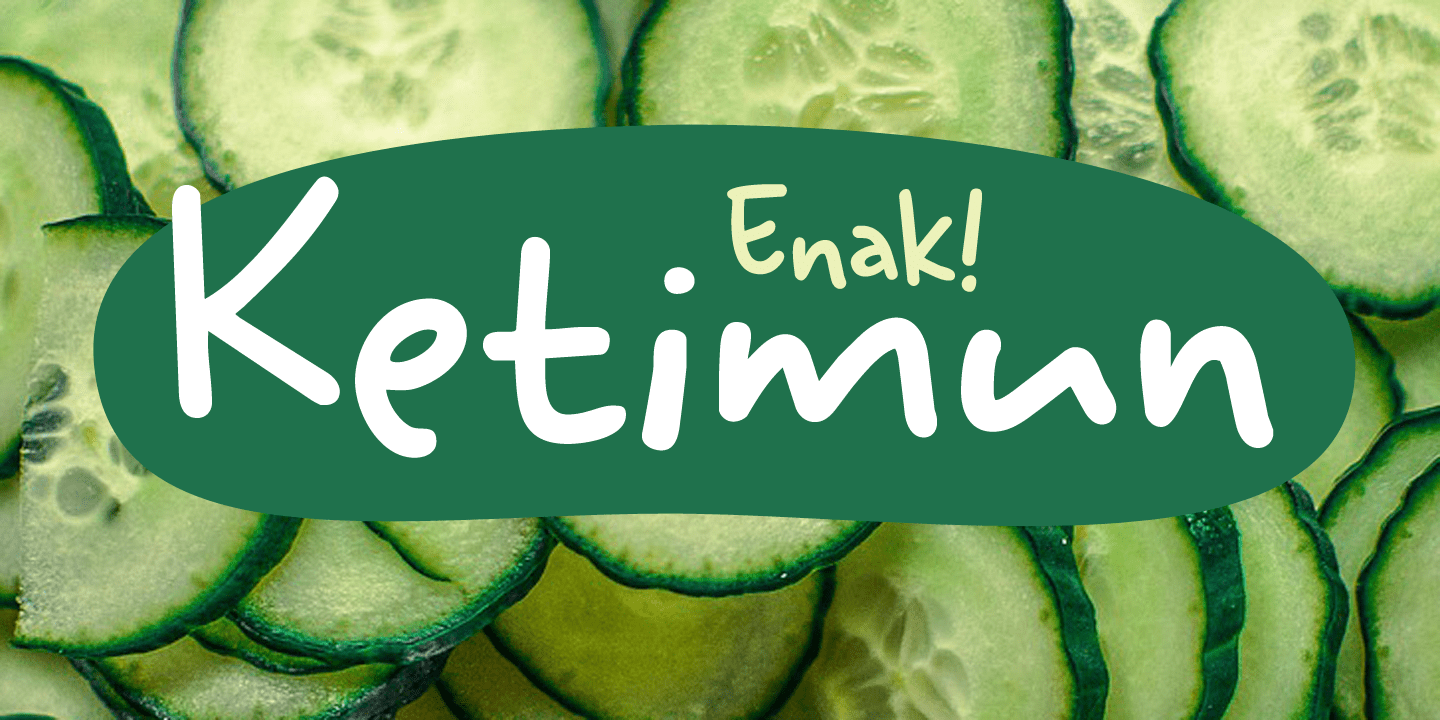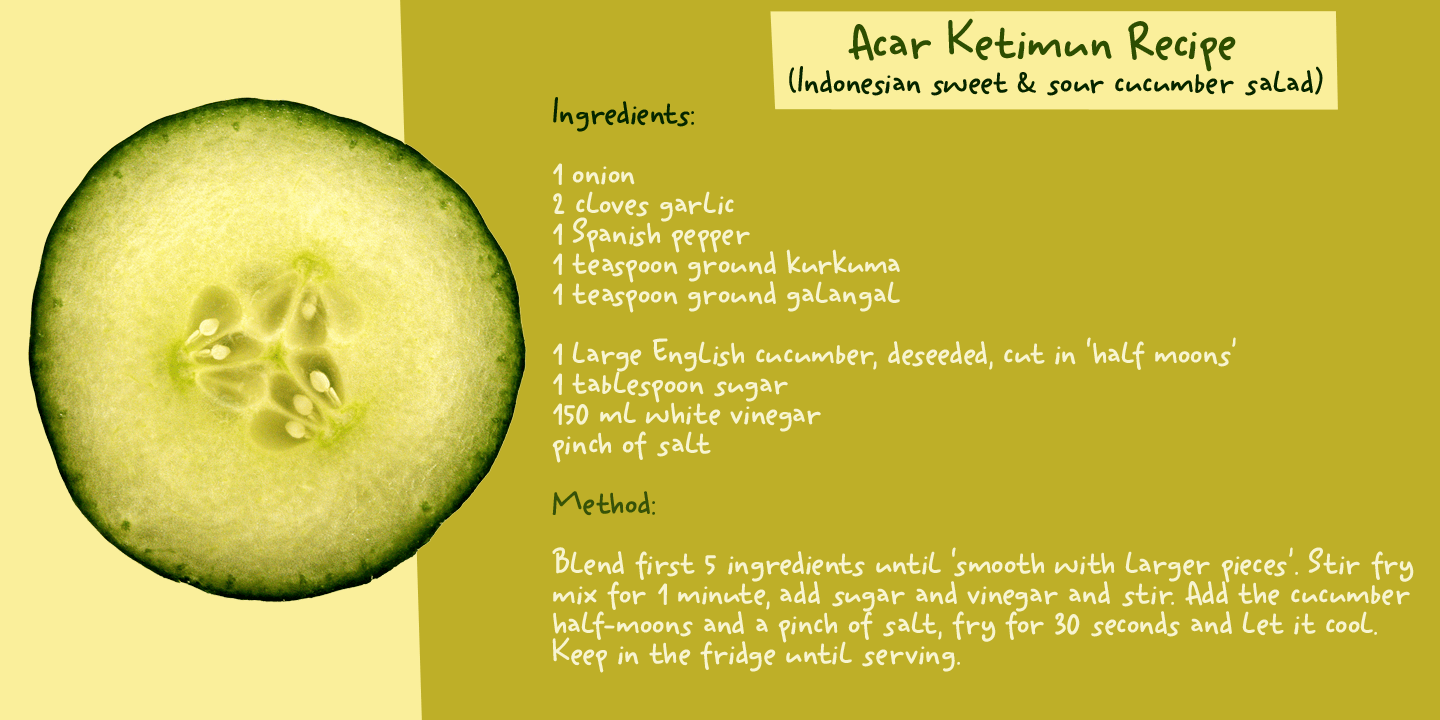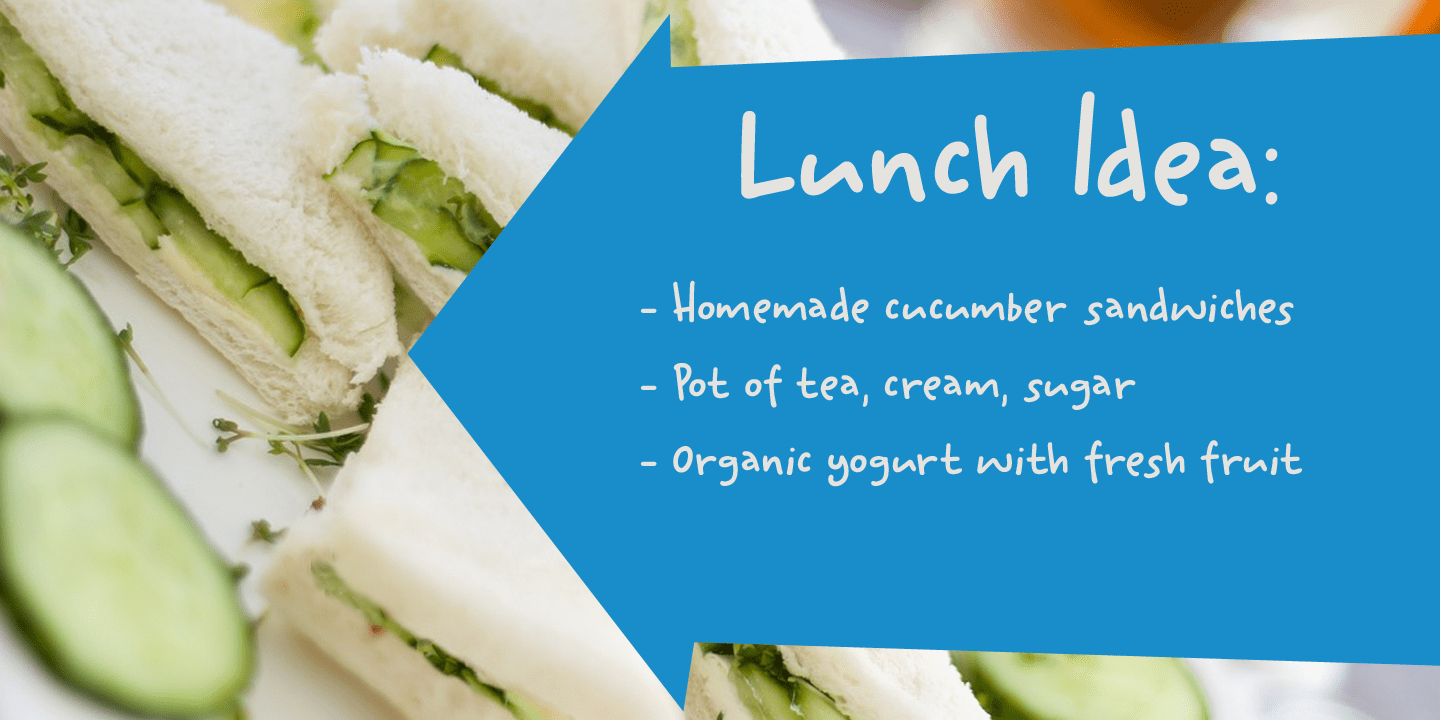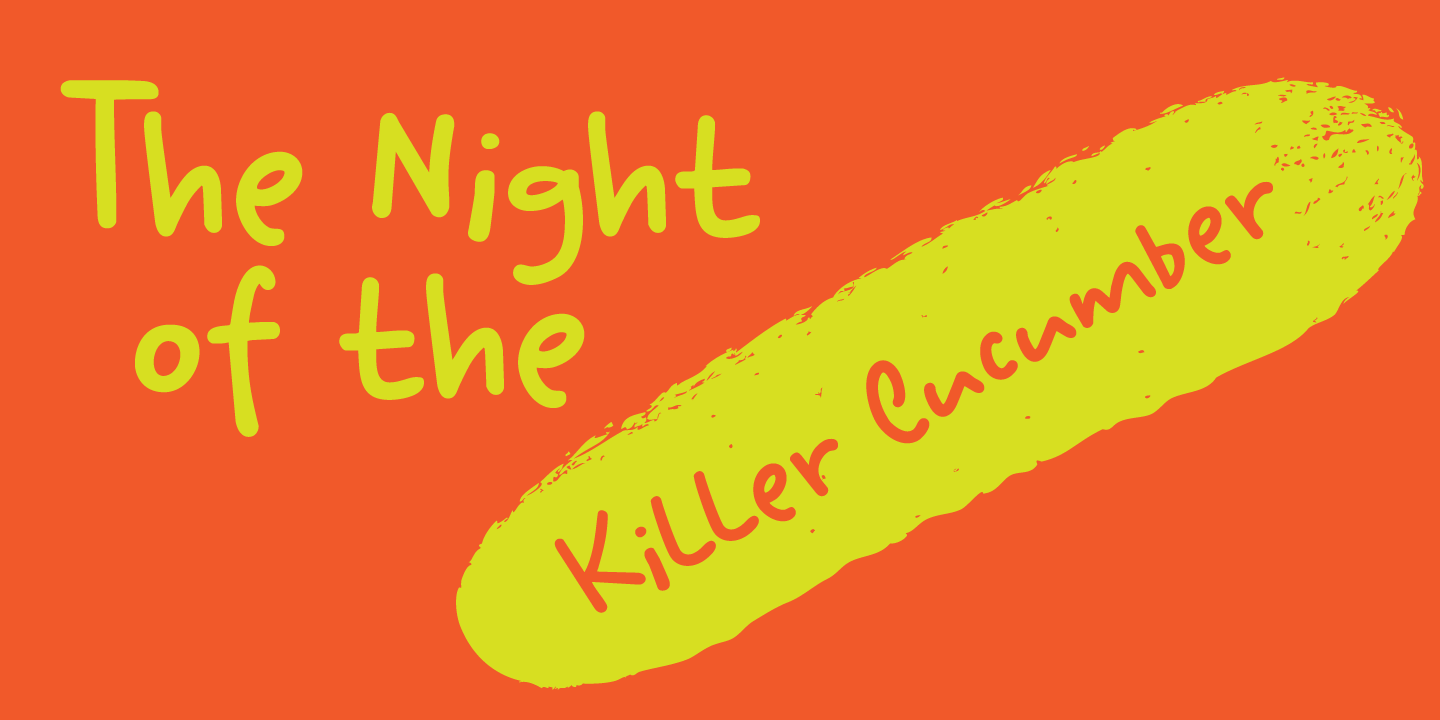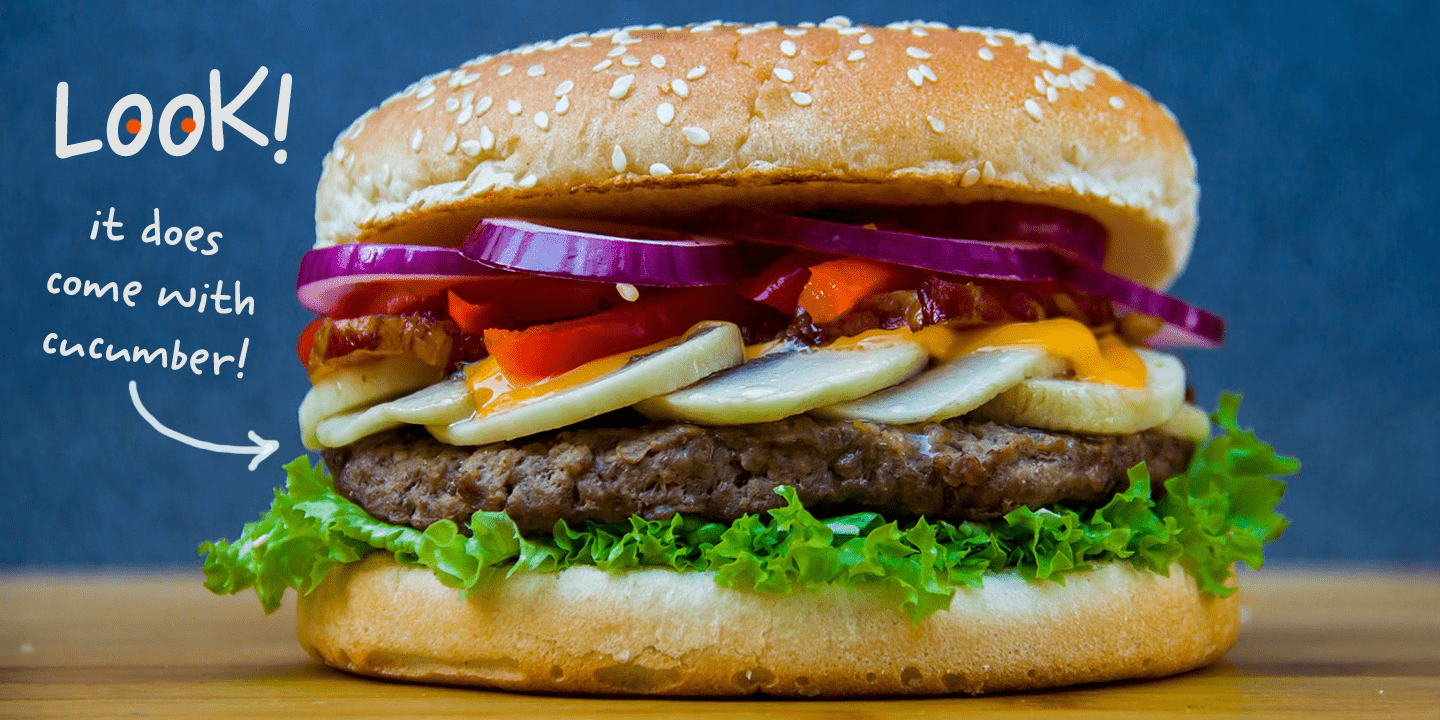
Ketimun
Ketimun means ?cucumber? in Bahasa Indonesia. At home we eat a lot (A LOT) of Indonesian food, which often includes Acar Ketimun (Sweet/sour cucumber salad). I usually make the simple version, but sometimes I go for the more elaborate cucumber salad (the recipe of which you'll find on poster 2).
Ketimun font is a rather delicious script font; uneven, organic and full of life. Comes with a fresh taste and lots of diacritics.